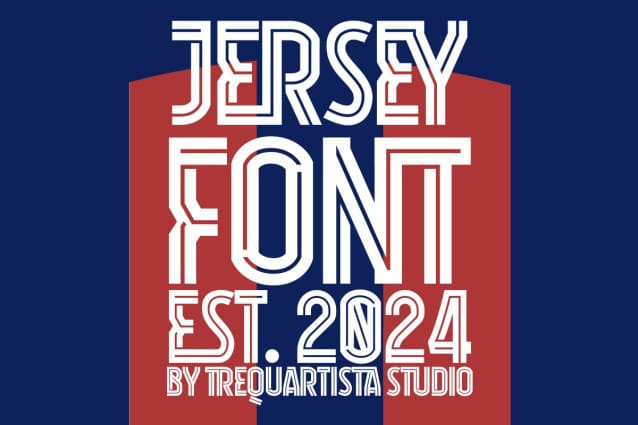
Jersey Display Font
Jersey Display Font, it would be a perfect choice to design posters, affiches, logos, t-shirt and magazine prints, eye-pleasing typographic designs and more.